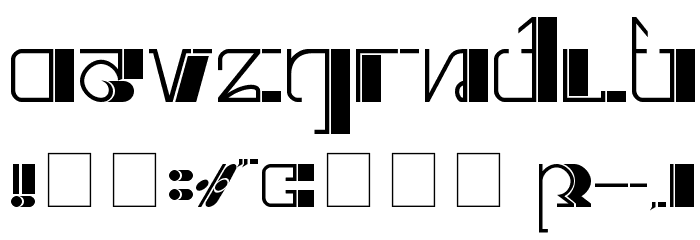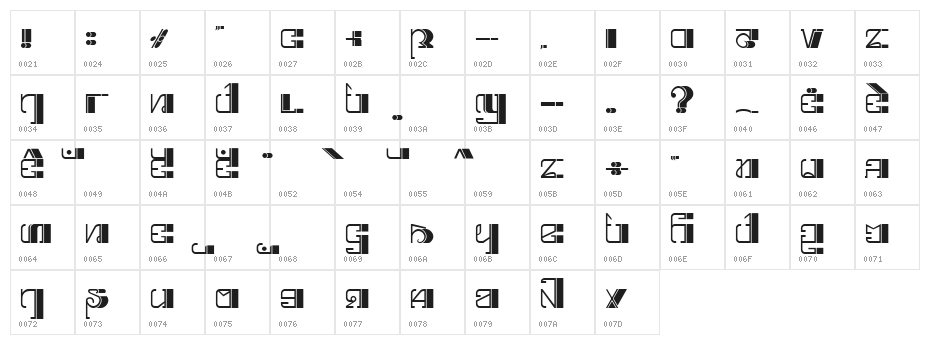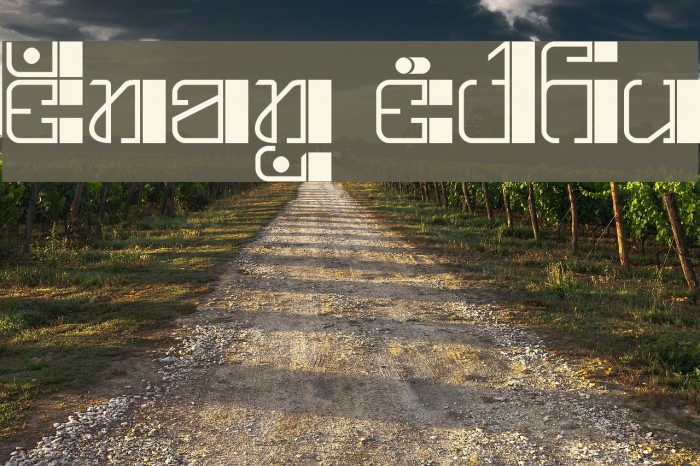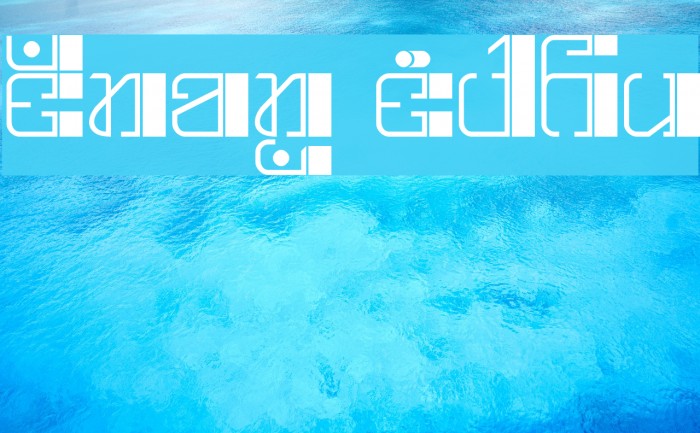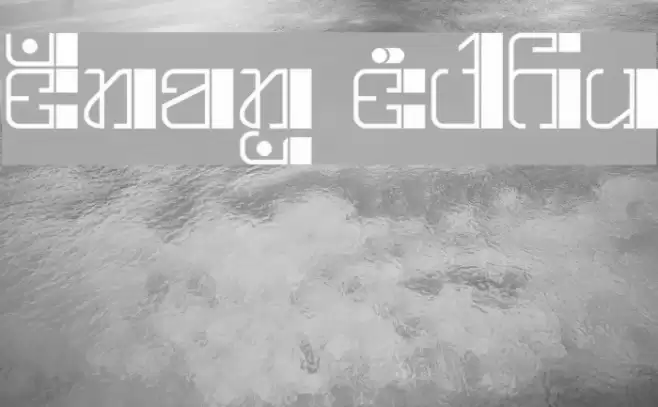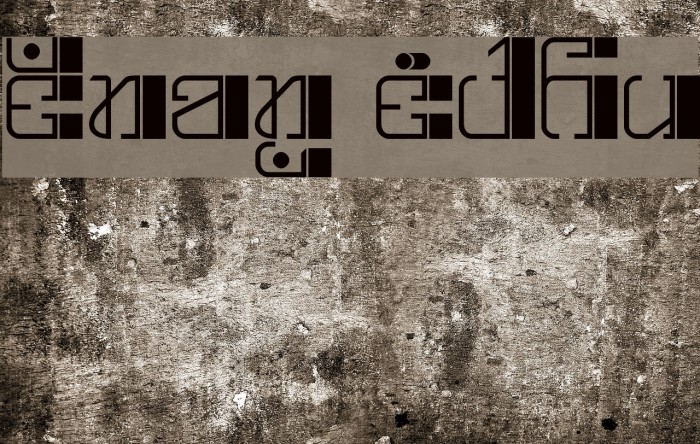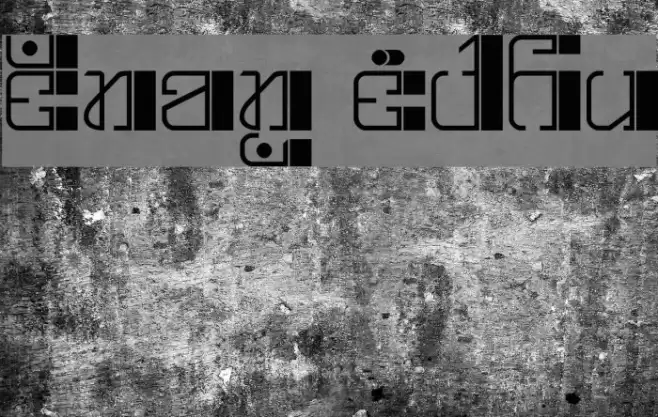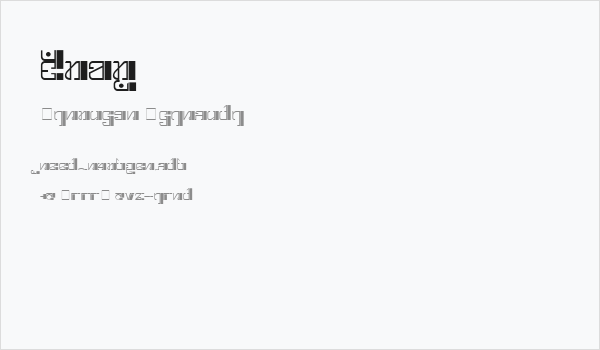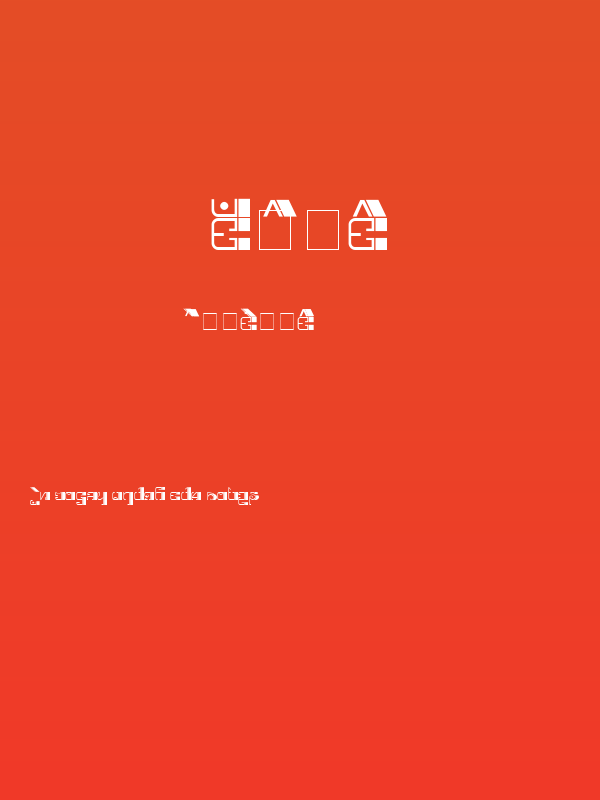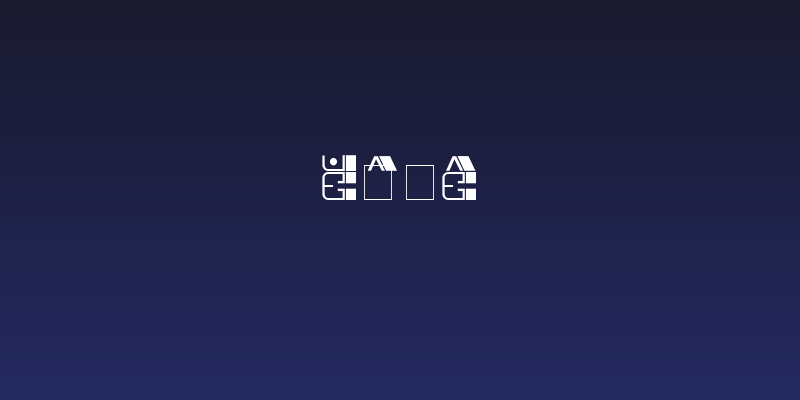
Kayah Font
Kayah Description
This font features a highly decorative and abstract style, characterized by intricate geometric shapes and bold, thick strokes. The letters are composed of a combination of sharp angles and smooth curves, creating a unique and artistic appearance. The design is reminiscent of modern art, with a focus on visual complexity and creativity. Each character is distinct, with some incorporating elements that resemble architectural structures or abstract symbols. The font's overall aesthetic is striking and unconventional, making it stand out in any design context.
Overall StyleModern, Decorative
Use CaseLogos, Posters, Artistic Designs
Proposed ProjectsIdeal for artistic projects, modern art posters, album covers, and branding that requires a unique and eye-catching typeface.